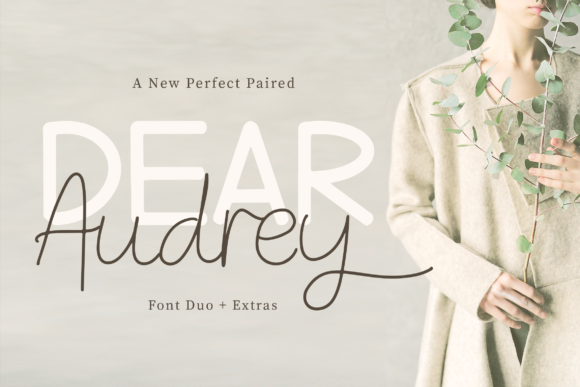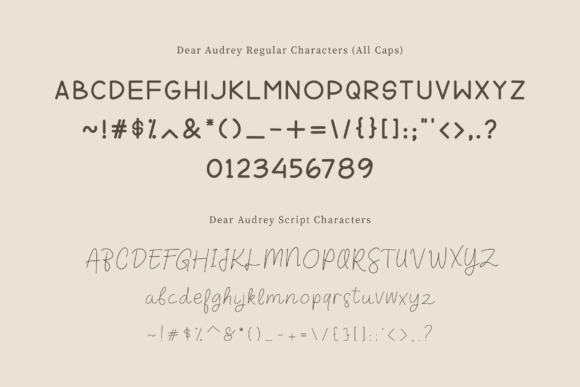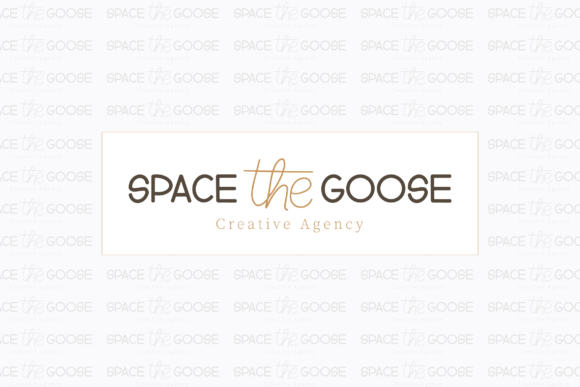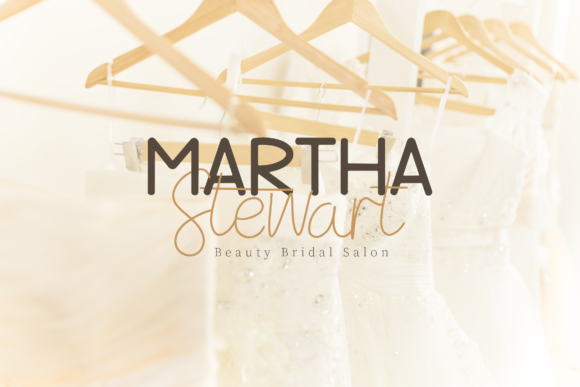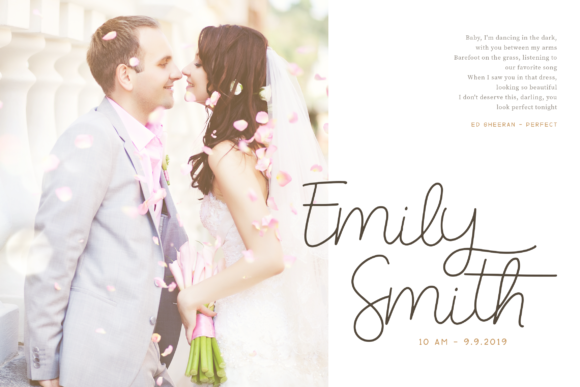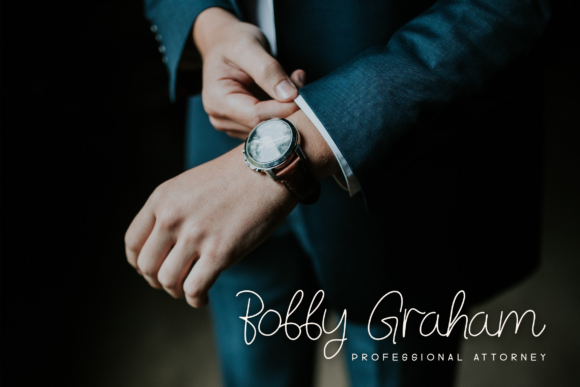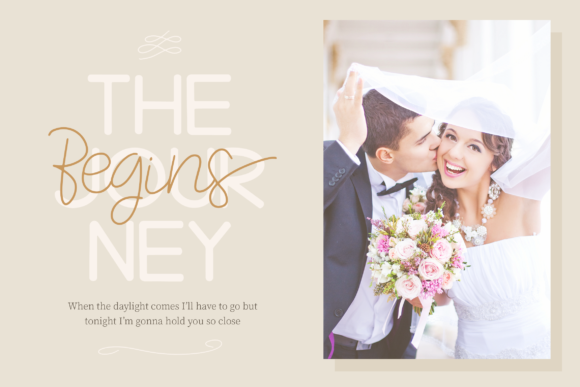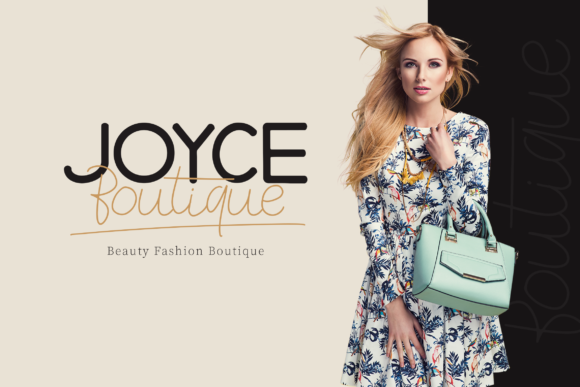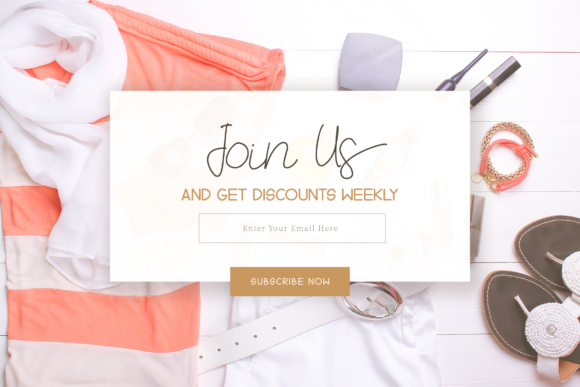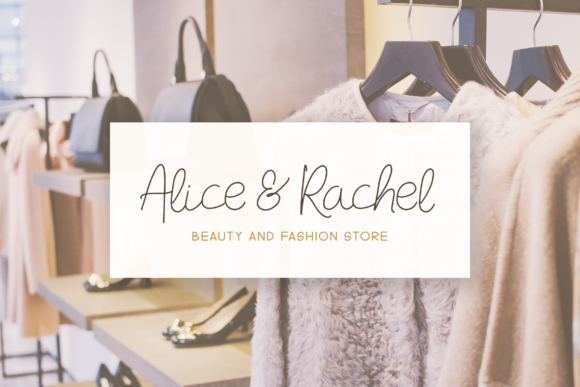
Dear Audrey Font
Dear Audrey is a pretty handwritten font duo font with a unique and elegant feel. Use both font styles together to customize your project and impress readers.